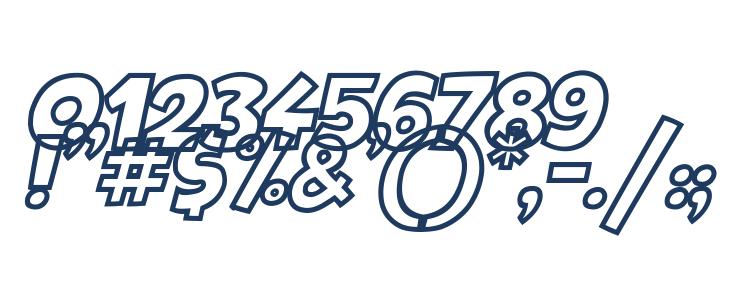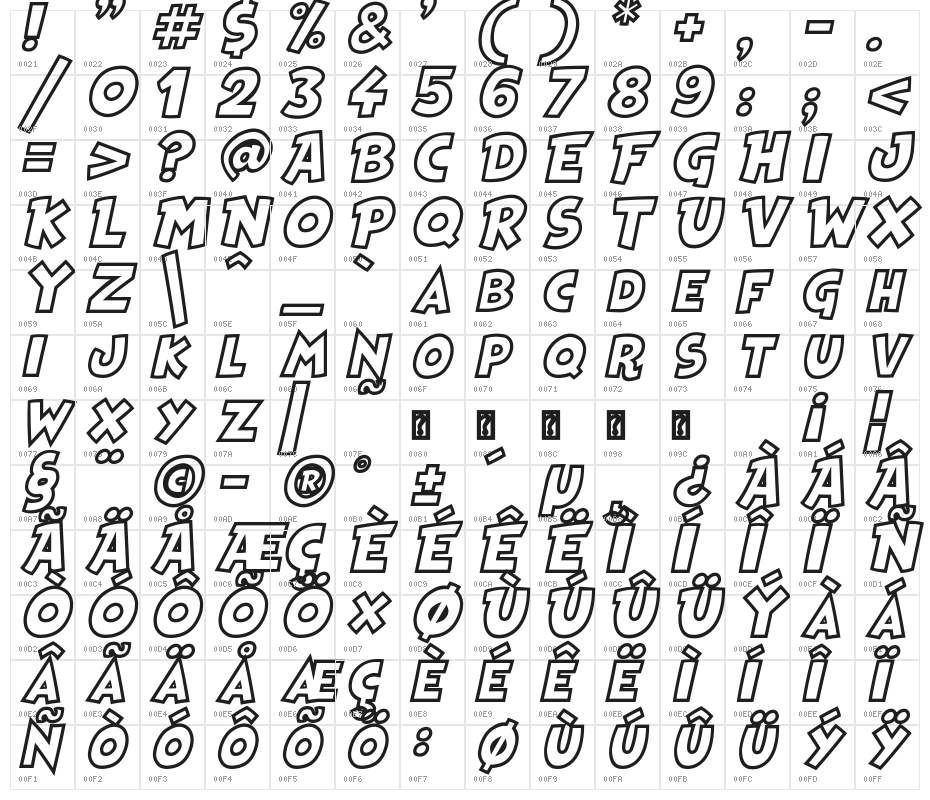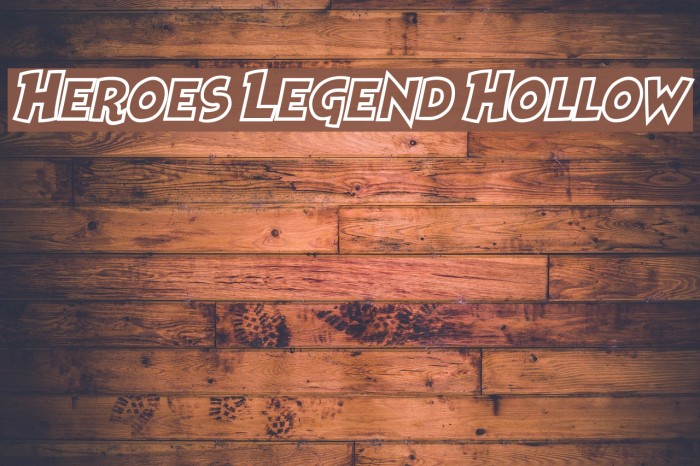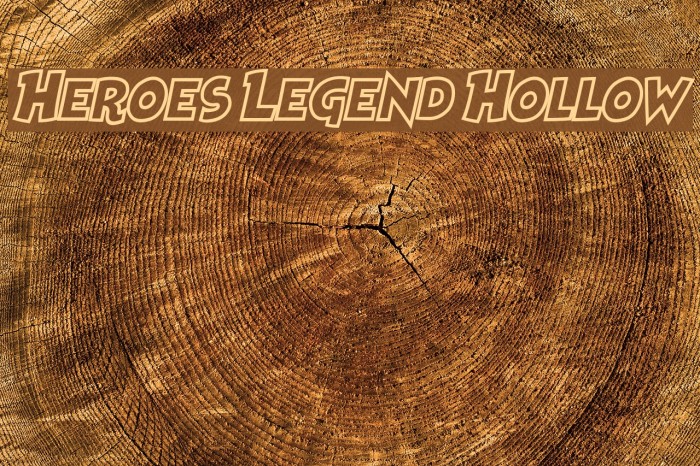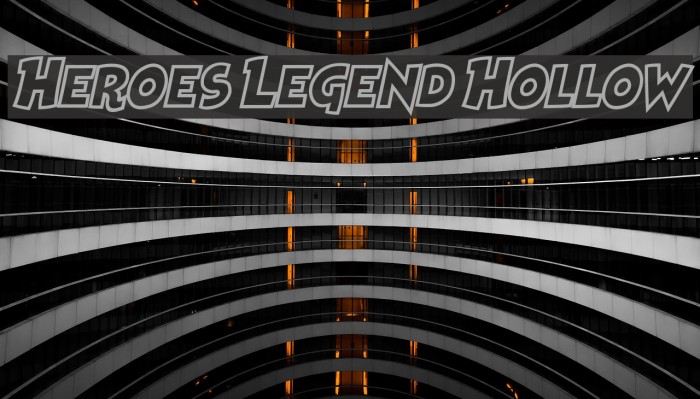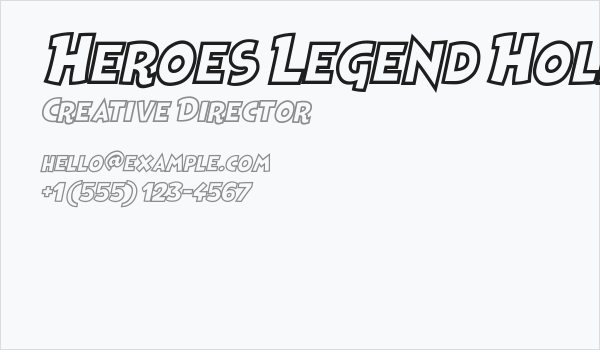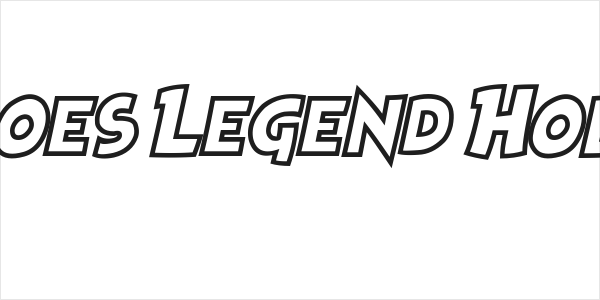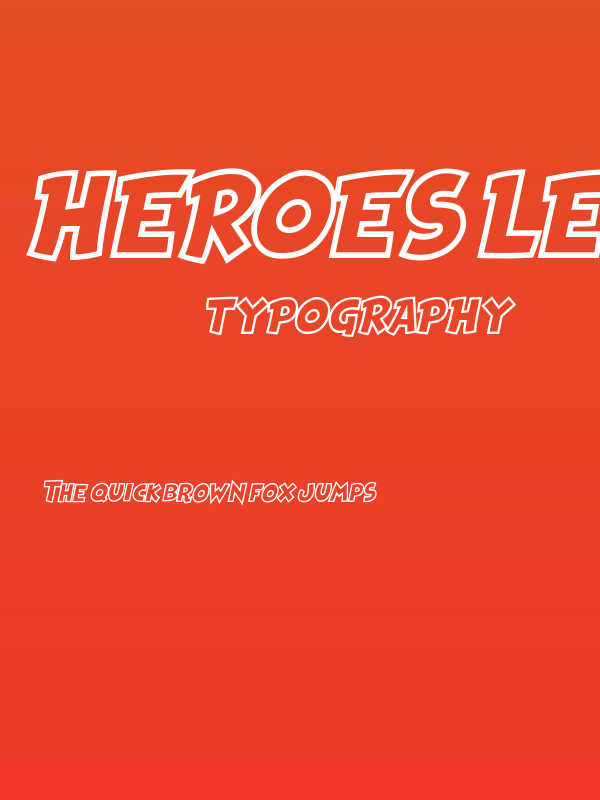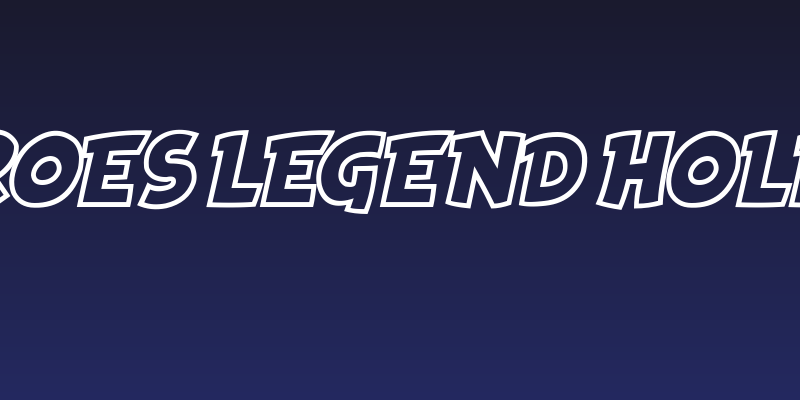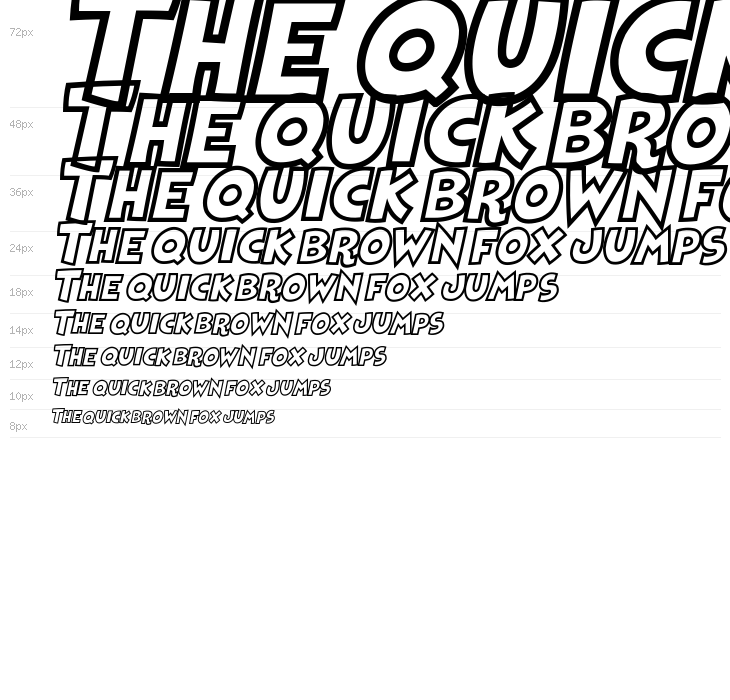
Heroes Legend Hollow Font
Heroes Legend Hollow Description
This font features a bold, hollow design with a playful and dynamic appearance. The characters are outlined, creating a striking visual effect that stands out. The uppercase and lowercase letters maintain a consistent style, with a slight slant that adds a sense of movement and energy. The numbers and special characters are designed to match the overall aesthetic, making this font versatile for various creative projects. Its bold outlines and unique style make it ideal for attention-grabbing designs.
Proposed ProjectsPerfect for comic book titles, posters, logos, and any project needing a bold and energetic typeface.